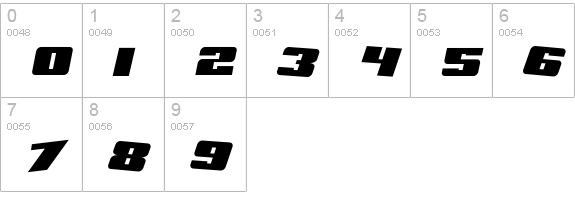
Aftershock Debris Solid Italic is a distinctive, italic variant in the Aftershock typeface family \xE2\x80\x94 well suited to design and typography projects.
Aftershock Debris Solid Italic is a bold and impactful font that exudes strength and resilience. Its unique design is inspired by the aftermath of a powerful earthquake, with sharp edges and a solid presence that commands attention. The italic style adds a sense of dynamism and movement to the text, making it perfect for headlines, posters, and other eye-catching designs. What's even more impressive is that Aftershock Debris Solid Italic is available for free download at FontsMarket.com. This means you can easily add this striking font to your collection without any cost, making it a valuable asset for your creative projects. Don't miss out on the opportunity to enhance your designs with this powerful and stylish typeface.